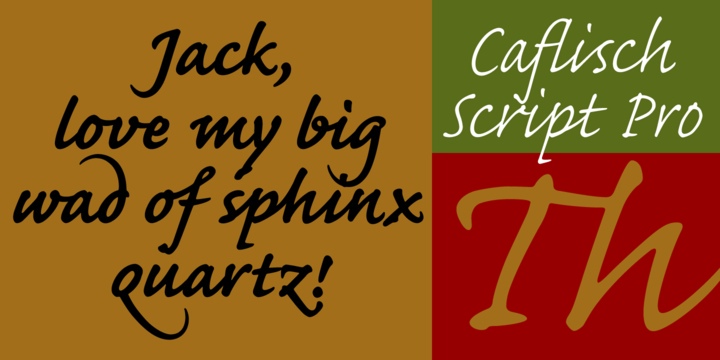
Caflisch Script Pro Font
Caflisch Script Pro Font is perfect for luxury wedding invitations, high-end calligraphy studios, prestigious award certificates, elegant greeting card designs, sophisticated brand packaging, upscale hospitality marketing, refined cultural events, and distinguished personal stationery. This masterful typeface excels in applications where calligraphic excellence and timeless elegance are essential for creating memorable and sophisticated brand experiences that honor the art of beautiful handwriting.
What makes Caflisch Script Pro Font truly exciting is its exceptional embodiment of Swiss typographic mastery and calligraphic perfection that captures the precise beauty of professional penmanship and the refined elegance of European design tradition. The font features exquisitely crafted letterforms with flowing connections and masterful character details that mirror the disciplined hand of a master calligrapher and the sophisticated restraint of Swiss design principles. Its refined personality and calligraphic character create an immediate sense of artistic excellence and cultural sophistication that resonates with audiences seeking authentic luxury experiences and artisanal quality. The typeface's Swiss heritage and calligraphic mastery make it perfect for brands wanting to convey excellence, tradition, and connection to the highest standards of typographic artistry and handwriting craft.
The Caflisch Script Pro Font family includes comprehensive OpenType features with extensive ligatures, contextual alternates, and swash variations, complemented by professional-grade decorative elements. The font offers sophisticated character sets with calligraphic symbols, elegant connectors, and Swiss styling details that enhance its refined aesthetic. Additional ornamental elements including flourished capitals, decorative swashes, artistic motifs, and calligraphic ornaments provide designers with complete professional tools rooted in European calligraphy tradition and Swiss design excellence.